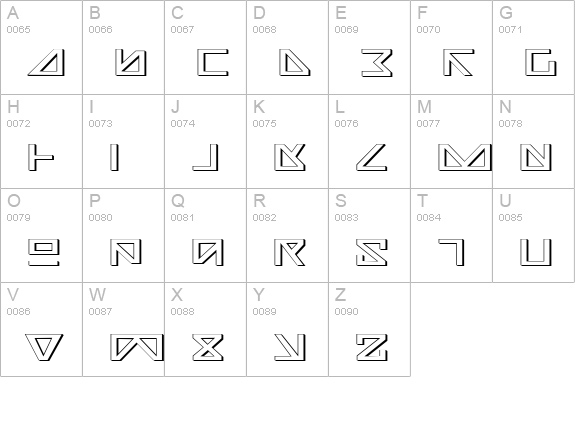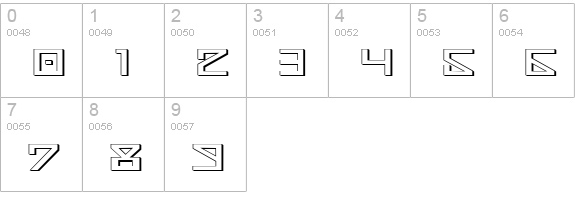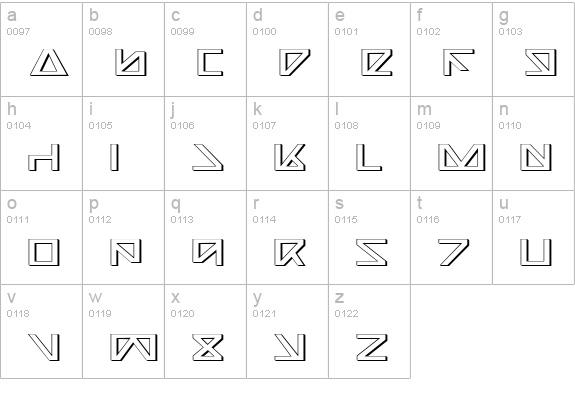
Nick Turbo Expanded 3D is a distinctive, extended-width variant in the Nick typeface family \xE2\x80\x94 well suited to design and typography projects.
Nick Turbo Expanded 3D font is a visually striking typeface that combines boldness with a sense of depth and dimension. Its sharp edges and modern design make it perfect for projects that demand attention and creativity. The 3D effect adds an extra layer of sophistication to any text, making it stand out in a crowd. What sets Nick Turbo Expanded 3D font apart is not only its impressive appearance but also its accessibility. This font is available for free download at FontsMarket.com, allowing designers and creatives to easily incorporate it into their work without any cost. Whether you're working on a poster, logo, website, or any other design project, Nick Turbo Expanded 3D font is a versatile and eye-catching choice that will elevate your creations to the next level.